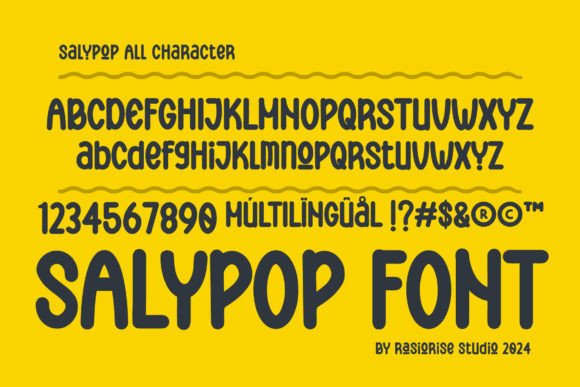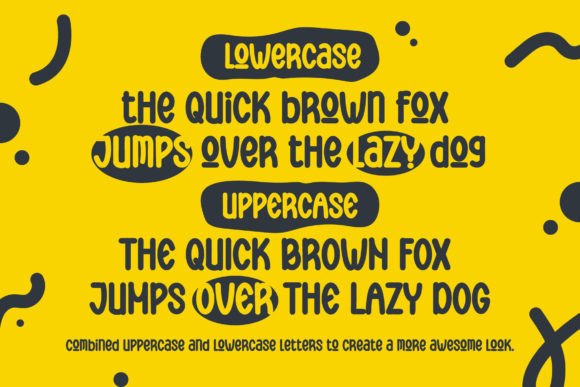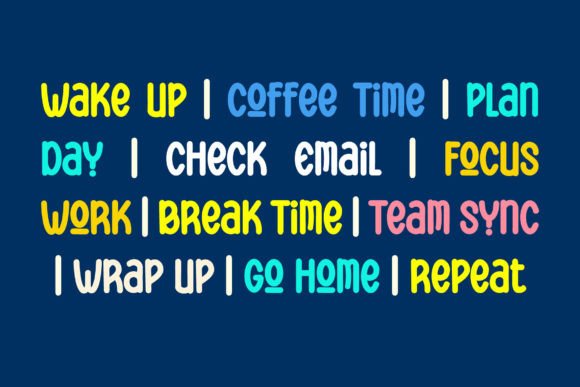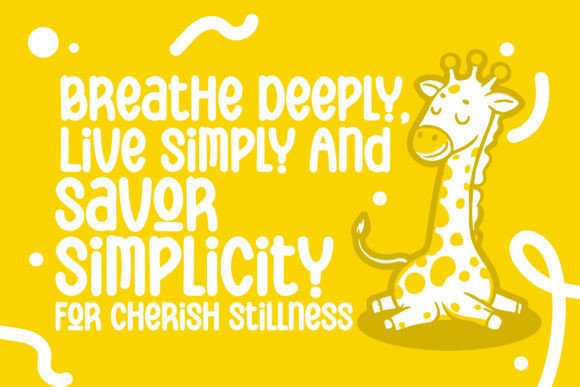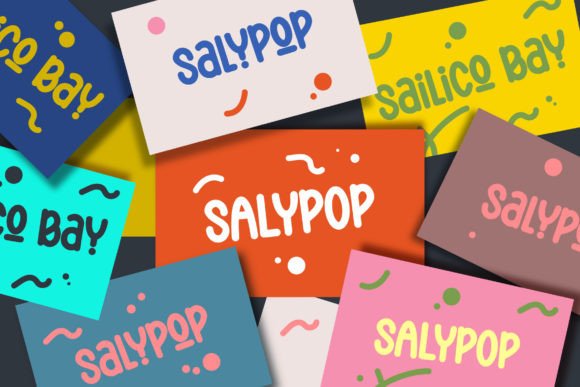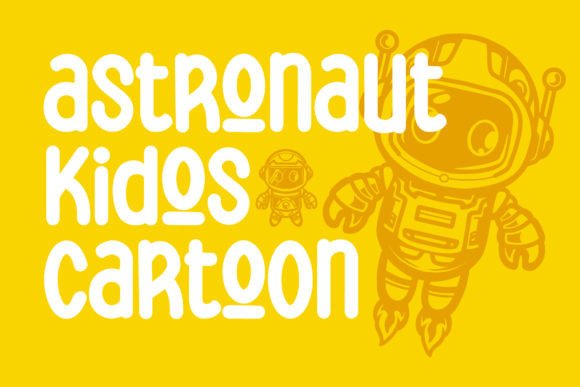
Introduction to Salypop Font
Who hasn’t felt the rush of excitement when brainstorming a new creative project? The spark of inspiration hits, and you know exactly what you need to bring your vision to life – a font that perfectly captures the playful essence of your design. For designers and artists seeking a high-quality, modern typeface, the Salypop Font is an absolute treasure trove. Inspired by the whimsical world of school and education fonts, Salypop Monoline Doodle Display Font combines doodle style and comic cartoon elements to create a truly unique design resource.
With its bold, monoline design and transparent background, the Salypop Font is a versatile tool for any creative project, from children’s book illustrations to graphic design and beyond. Its simplicity and readability make it an invaluable asset for designers of all levels, offering endless possibilities for expression and imagination.
Key Features of Salypop Font
- Unique, Hand-Drawn Design: Salypop Font is a creative resource perfect for adding a personal touch to your projects.
- Transparent Background: Salypop Font features a transparent background, allowing for easy customization and integration into various design elements.
- Perfect for Creative Projects: Salypop Font is ideal for use in creative projects, including logos, branding materials, and digital art.
- High Resolution: Salypop Font is designed at a high resolution of 300 DPI, ensuring crisp and clear text output.
Honest Review: Salypop Font
As a designer, I’m always on the lookout for high-quality design resources that can elevate my creative projects. Recently, I came across the Salypop Font, and I was excited to give it a try.
- ✨ The font is designed to have a transparent background, allowing for seamless integration with any design project.
- ✨ The font’s unique design style makes it perfect for creating eye-catching headings and titles.
- ⚠️ The font may not be suitable for all design projects, as its unique style may not appeal to every audience.
Overall, I’m impressed with the Salypop Font. Its unique design style and transparent background make it a valuable addition to any designer’s toolkit. While it may have some limitations, I believe it’s definitely worth trying out for your next creative project.
Designing with Salypop Font
Getting the Most Out of Salypop Font
To get the most out of Salypop Font, use it in conjunction with other design elements, such as images and graphics. Experiment with different font sizes and styles to create a unique look.
Common Use Cases for Salypop Font
Salypop Font is ideal for a variety of creative projects, including social media graphics, presentations, and advertisements. It’s also great for use in personal projects, such as blog posts and websites.
Comparison to Salypop Font: Open Sans is more legible and has a wider range of font sizes, making it easier to read in different contexts. Salypop Font has a more distinctive and ornate design, which may be more suitable for specific creative projects.
Q: Does the Salypop Font have a transparent background?
No, the Salypop Font is a solid-colored font and does not have a transparent background. However, you can use image editing software to create a transparent background if needed for your specific design requirements.